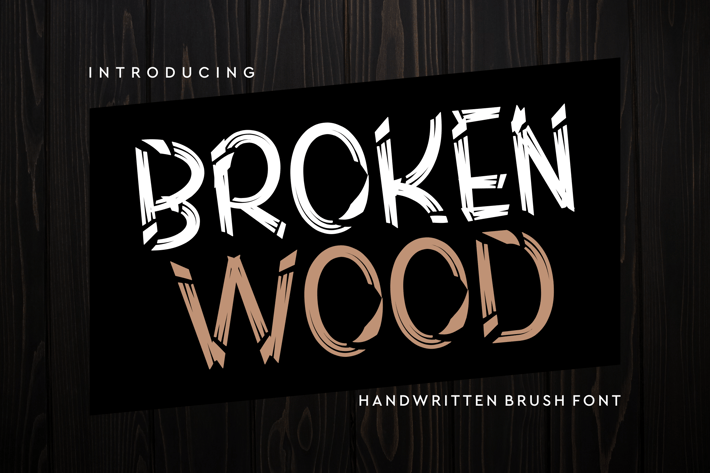
Broken Wood Font
Introducing our new product Broken Wood Font - Modern Font
Broken Wood Font - Modern Font is a bold and authentic display font. The font is suitable for any branding project like logo, esport, and many more. outstanding in a wide range of contexts.